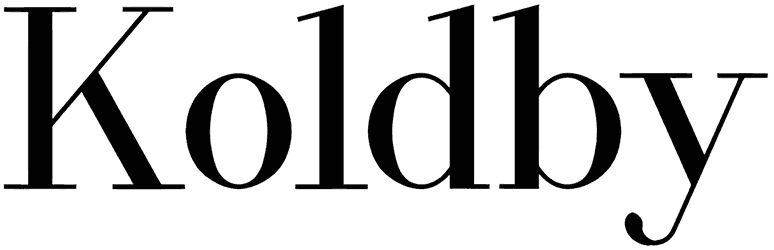
Koldby Font
How precious your typography will be if it is united with a clean serif font like Koldby. Its reliable and official letterforms can satisfy any onlooker who draws on it more in headers, business cards, posters, and other printed displays. Conveying a sense of seriousness, respect, and dignity, so the quality of your work can satisfy even the most demanding audience.